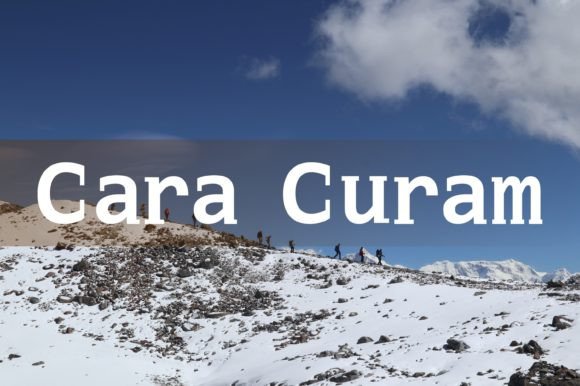
Embrace the Timeless Elegance of Cara Curam: The Perfect Serif Font for Your Design Endeavors
In the realm of typography, where letters dance and words take flight, there exists a font of exceptional grace and beauty, a font that transcends the boundaries of time, its allure undiminished by the ever-changing tides of design trends. Introducing Cara Curam, a serif font of unrivaled sophistication, meticulously crafted to bestow an air of timeless elegance upon your creative projects.
A Masterpiece of Serif Typography
Cara Curam, the brainchild of the renowned font designer mhd.usman00, is a testament to the enduring power of serif fonts. Its meticulously crafted letterforms, adorned with delicate serifs and graceful curves, exude an aura of timeless sophistication, reminiscent of the golden age of typography.
Crafted with a keen eye for detail and a deep understanding of typographic principles, Cara Curam is a font that commands attention without overpowering. Its carefully balanced proportions and sharp, clean lines ensure optimal legibility, even at small sizes, making it an ideal choice for a wide range of applications.
The Allure of Serif Fonts
Serif fonts, with their distinctive finishing strokes, have long been associated with elegance, tradition, and a touch of nostalgia. They bring a sense of gravitas and sophistication to any design, making them particularly suitable for formal settings such as magazines, books, and marketing materials.
Cara Curam, with its refined serif design, embodies these qualities perfectly. Its meticulously drawn serifs add a touch of visual intrigue, guiding the reader's eye effortlessly across the page. The result is a font that is both aesthetically pleasing and highly functional, ensuring that your words will be presented with the utmost clarity and impact.
A Font for All Occasions
The versatility of Cara Curam is truly remarkable. Its timeless design makes it suitable for a wide range of applications, from elegant wedding invitations and sophisticated business cards to eye-catching posters and captivating social media graphics.
Whether you're crafting a corporate report, designing a magazine layout, or creating a stunning poster, Cara Curam will elevate your designs with its refined aesthetic charm. Its ability to effortlessly adapt to various design styles and themes makes it a true asset for any creative professional.
The Perfect Font for LCD Displays
In the digital age, where screens have become ubiquitous, Cara Curam shines as a font that is perfectly optimized for LCD displays. Its sharp, clean lines and carefully spaced characters ensure excellent readability, even at small sizes.
Whether you're designing a website, creating a mobile app, or crafting a digital presentation, Cara Curam will ensure that your text remains crisp, clear, and easy to read, even on the most pixel-dense screens.